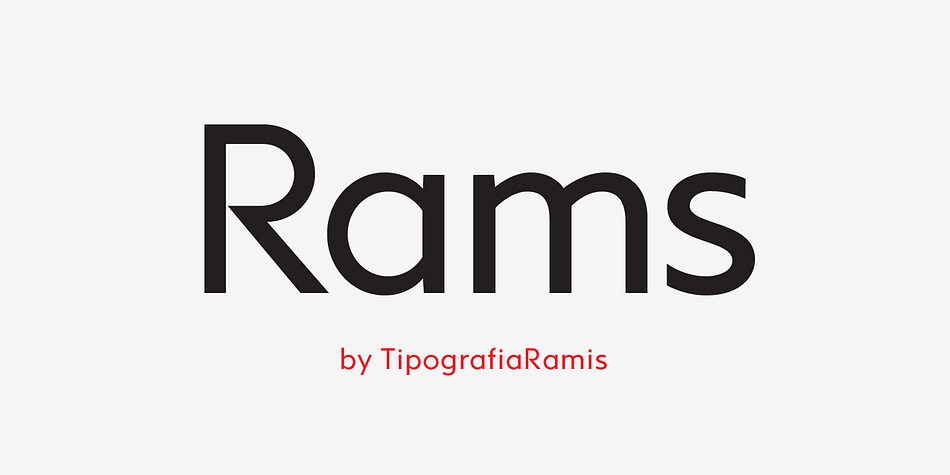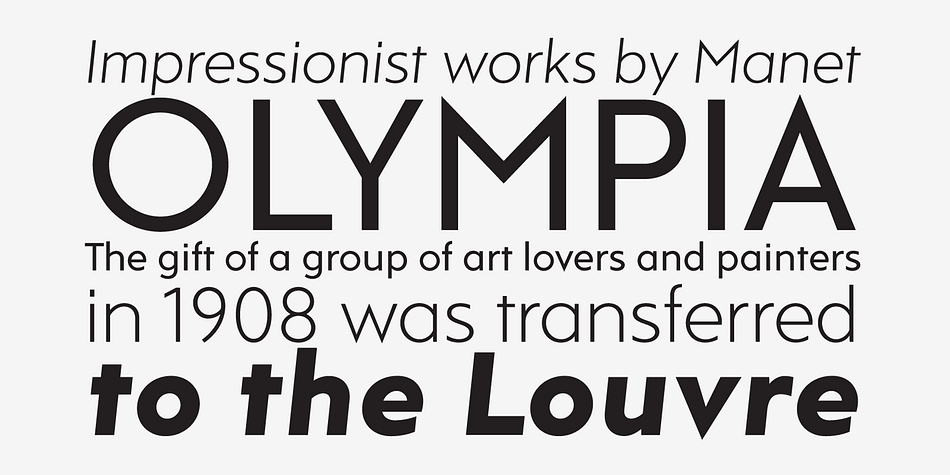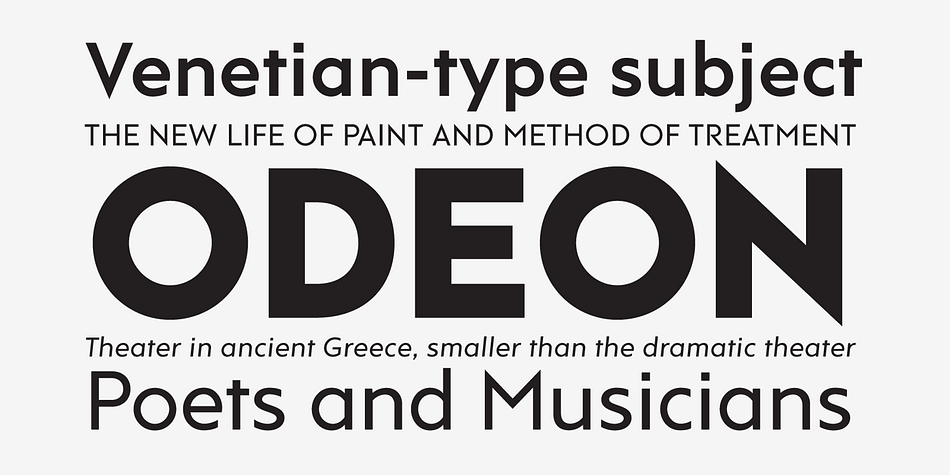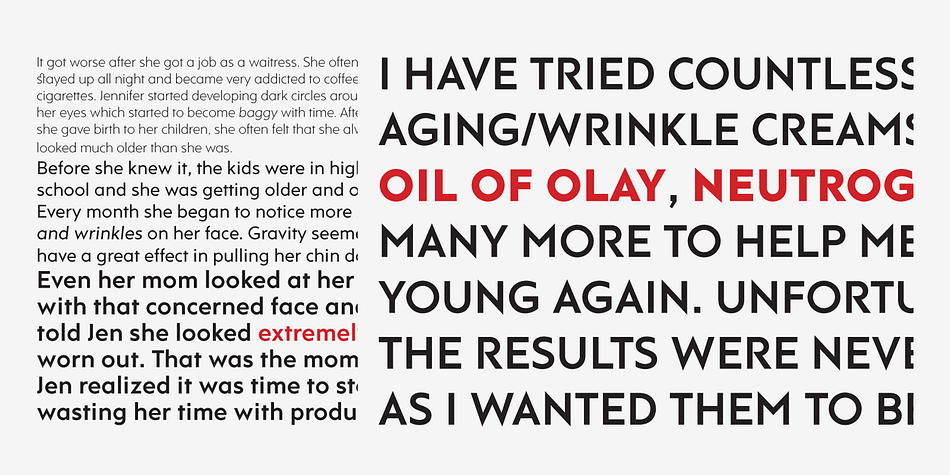
Designed by Ramiz Guseynov, Rams is a sans serif font family. This typeface has eight styles and was published by TipografiaRamis.
Rams is a Sans Serif type family of four weights with matching italics. The typeface’s design was influenced by the geometric style of Sans Serif faces of the 30s. The letter shapes - based on geometric forms - have been optically corrected for better legibility, thus enabling geometric concepts to be adapted by typographic tradition.
While the typeface is intended for use in display sizes, it is also quite legible in text and is well suited for editorials.
Rams is released in OpenType format with extended support for most Latin languages and includes some opentype features - proportional/tabular figures, slashed zero, ligatures, fractions…